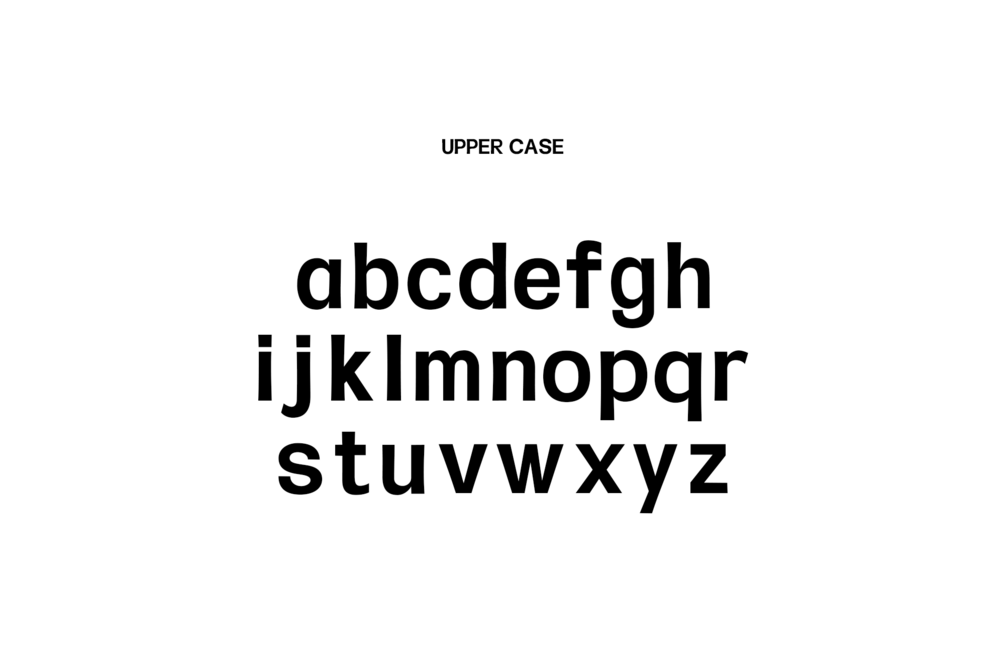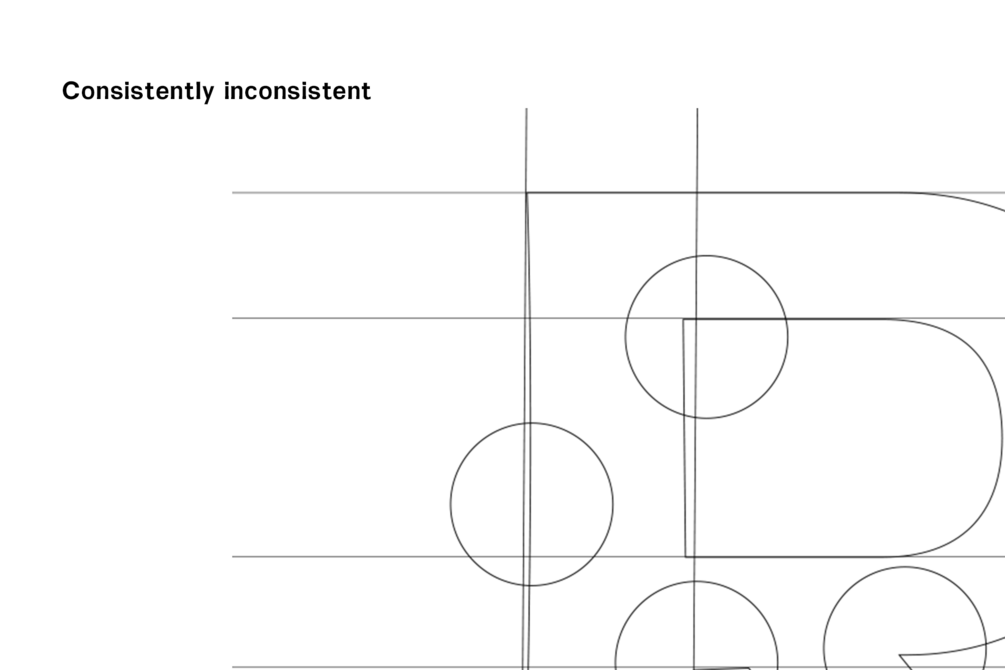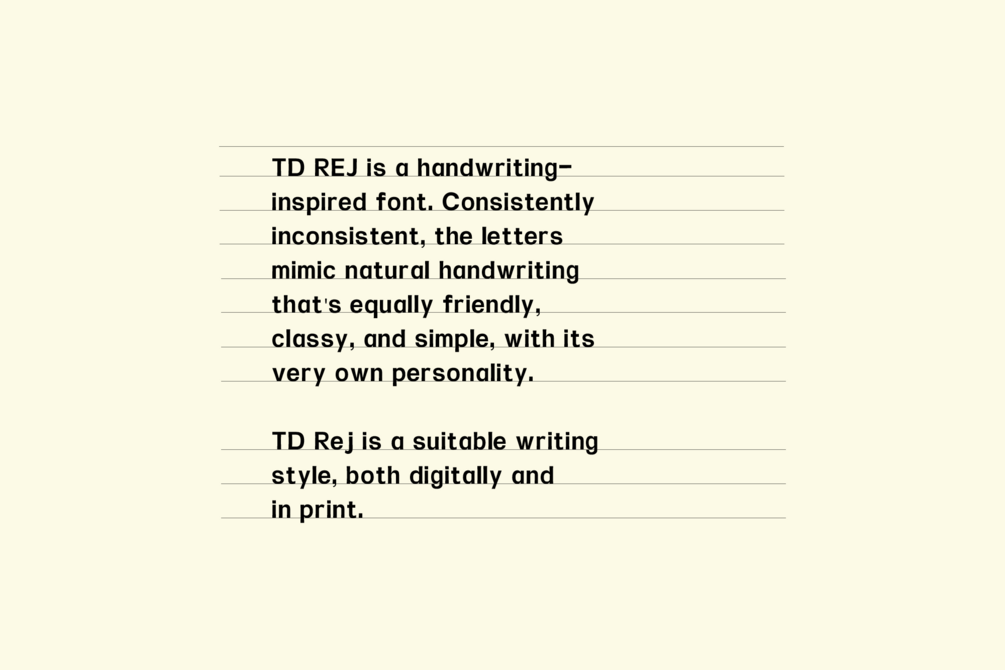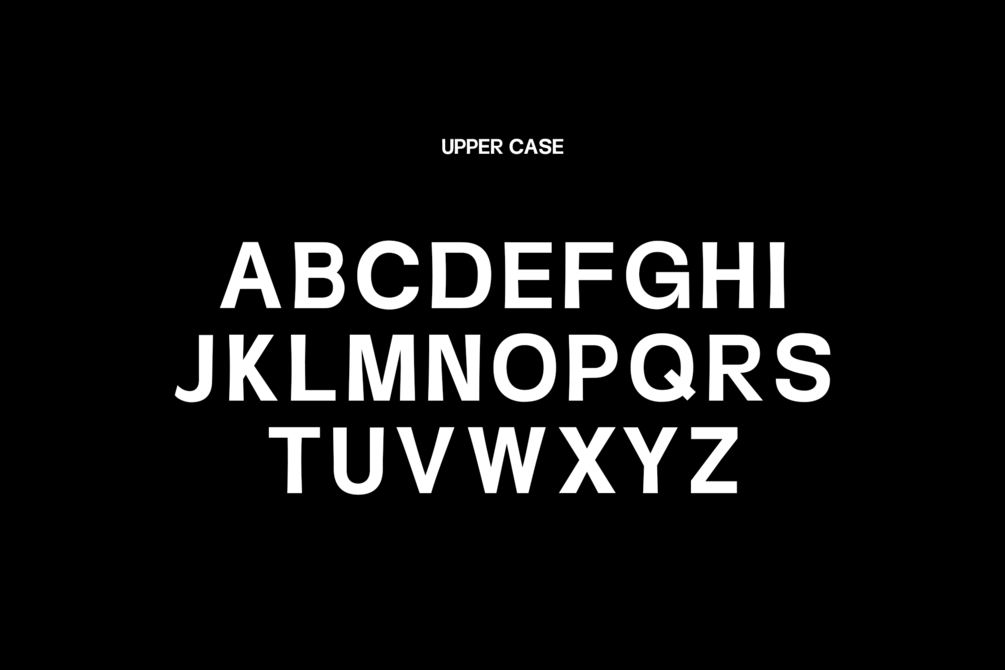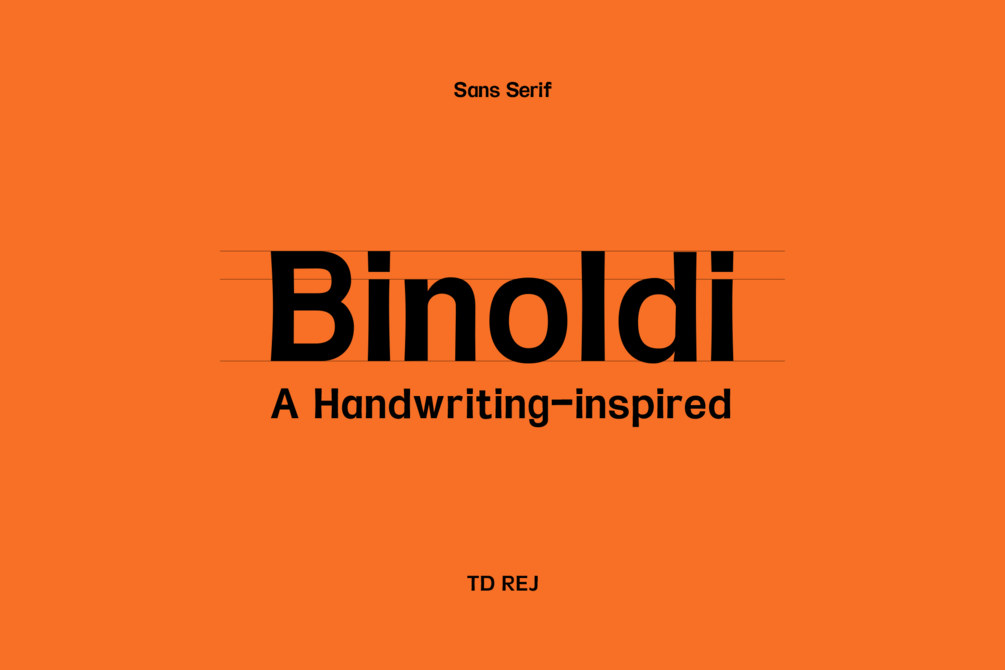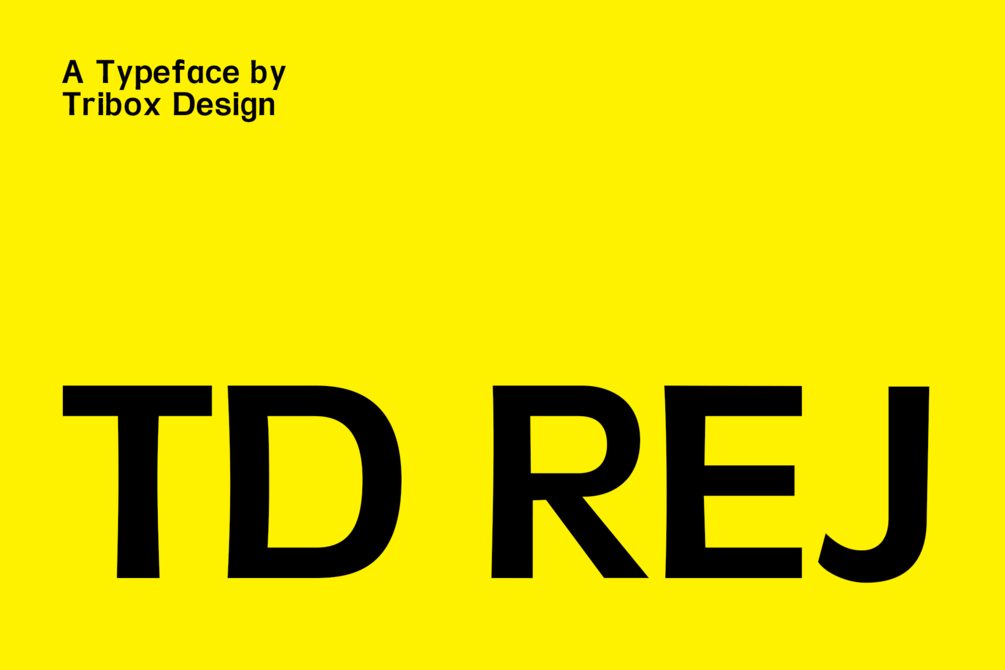
TD REJ
TD Rej is a handwriting-inspired font. Consistently inconsistent, the letters mimic natural handwriting that's equally friendly, classy, and simple, with its very own personality. TD Rej is a suitable writing style, both digitally and in print.